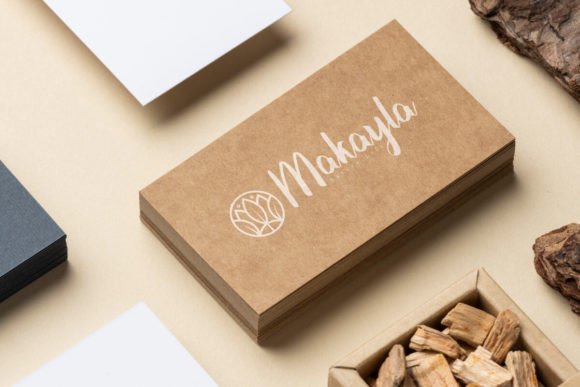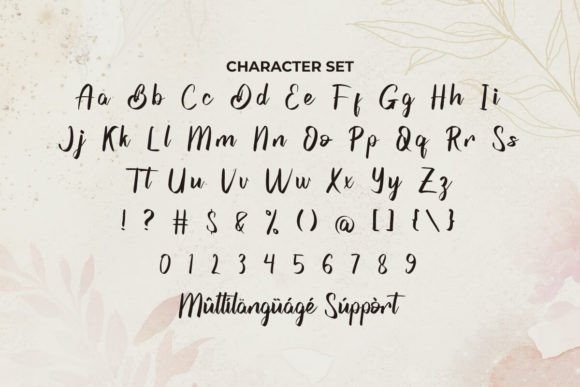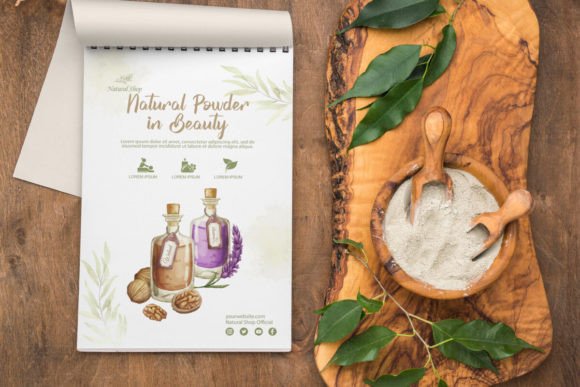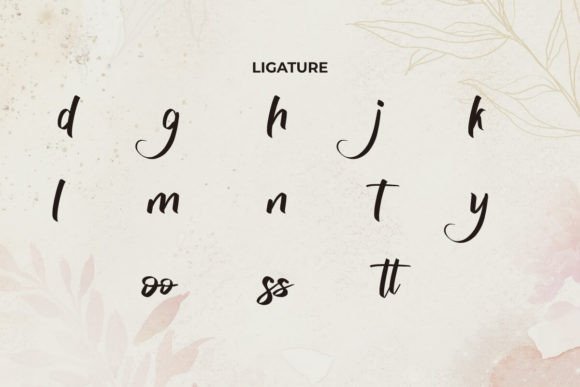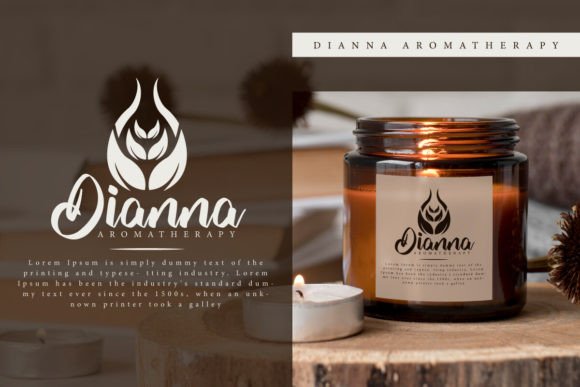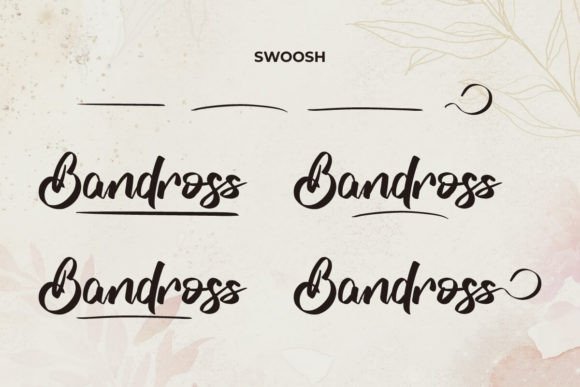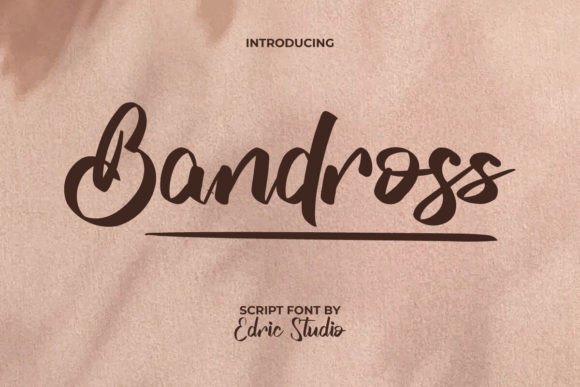
Introducing Bandross Font: The Ultimate Bold Script Font for Creative Projects
In the world of typography, a font can make or break the visual appeal of a design project. For designers and crafters looking for a bold and stylish script font, Bandross is an excellent choice. Created by EdricStudio, Bandross is a classic yet modern font that is sure to elevate your designs to the next level.
What Makes Bandross Font Stand Out?
Bandross is a bold script font that boasts a stylish look, making it perfect for a wide range of creative projects. Its classic touch and bold lettering make it stand out from other fonts, ensuring that your designs grab attention and leave a lasting impression. Whether you’re working on a fashion brand, accessories, handicraft, photography, printing, publishing, restaurant, spa, or any other industry, Bandross is an excellent choice.
Key Features of Bandross Font
- Bold and Stylish: Bandross is a bold script font with a stylish look that adds a touch of elegance to any design project.
- Classic Touch: This font has a classic touch that makes it versatile and suitable for a wide range of industries.
- Easy to Read: Despite its boldness, Bandross is easy to read, making it perfect for body text and headlines.
- Highly Versatile: Bandross can be used for various design projects, including logos, branding, packaging, posters, and more.
Use Cases for Bandross Font
Bandross is an excellent choice for various design projects, including:
- Fashion Brands: Use Bandross to create stylish and bold logos, advertisements, and marketing materials for your fashion brand.
- Accessories: Add a touch of elegance to your accessory designs with Bandross, perfect for jewelry, handbags, and more.
- Handicraft: Bandross is an excellent choice for handicraft projects, such as packaging, labels, and branding materials.
- Photography: Use Bandross to create stunning titles and captions for your photography projects.
- Printing and Publishing: Bandross is perfect for book covers, magazine titles, and other printing and publishing projects.
- Restaurants and Spas: Add a touch of sophistication to your restaurant or spa branding with Bandross.
Why Choose Bandross Font?
With so many fonts available, why choose Bandross? Here are a few reasons:
- Unique and Distinctive: Bandross has a unique and distinctive look that sets it apart from other fonts.
- High-Quality Design: Created by EdricStudio, Bandross is a high-quality font designed with attention to detail.
- Easily Readable: Despite its boldness, Bandross is easy to read, making it perfect for body text and headlines.
- Versatile: Bandross can be used for various design projects, making it an excellent addition to your font library.
In conclusion, Bandross is an excellent choice for designers and crafters looking for a bold and stylish script font. Its classic touch, bold lettering, and ease of readability make it perfect for a wide range of creative projects. Whether you’re working on a fashion brand, accessories, handicraft, photography, printing, publishing, restaurant, spa, or any other industry, Bandross is sure to elevate your designs to the next level.